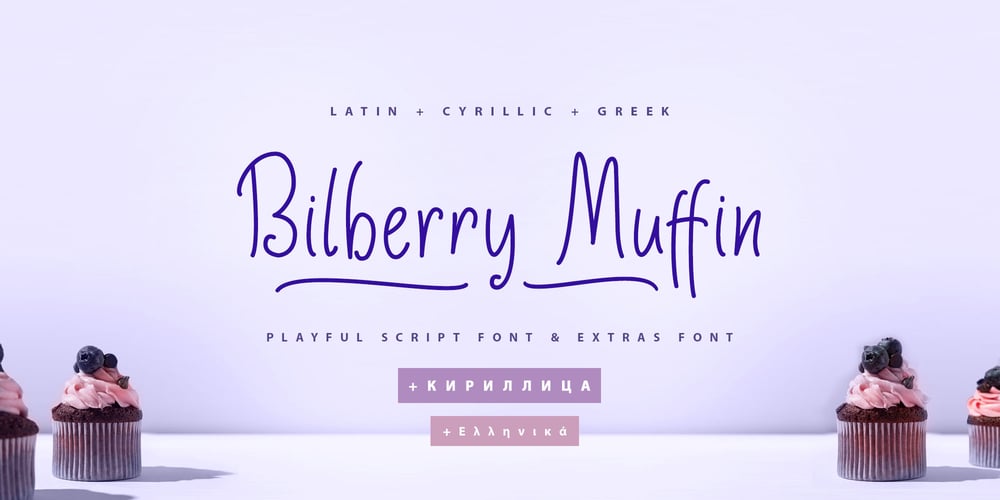
Bilberry Muffin Cyr Gr
Bilberry Muffin Cyr Gr font
Bilberry Muffin Cyr Gr Font Family was designed by Iryna Dviliuk and published by Ira Dvilyuk. Bilberry Muffin Cyr Gr contains 2 styles and family package options. Bilberry Muffin playful Cyrillic Greek script font is perfect for use in all your design projects be it logos, signatures, labels, packaging design, or blog headlines. Also, it will look great in mugs, cards, gorgeous typographic designs, wedding stationery, and much more.Bilberry Muffin playful Cyrillic Greek script font includes a complete set of uppercase and lowercase letters, numerals, a large range of punctuation, and 35 ligatures, giving a realistic hand-lettered style.Bilberry Muffin Symbols is a font with 26 unique, hand-drawn illustrations and elements that can help to make your design more original. A different symbol is assigned to every uppercase and lowercase standard character so you do not need graphics software just type the letter you need.Multilingual Support for 33 languages: Afrikaans, Albanian, Basque, Bosnian, Catalan, Danish, Dutch, English, Estonian, Faroese, Filipino, Finnish, French, Galician, Indonesian, Irish, Italian, Malay, Norwegian Bokmål, Portuguese, Slovenian, Spanish, Swahili, Swedish, Turkish, Welsh, Zulu.Font also contains Greek glyphs too.And Cyrillic glyphs support Russian, Belorussian, Bulgarian, Ukrainian, and Kazakh languages.